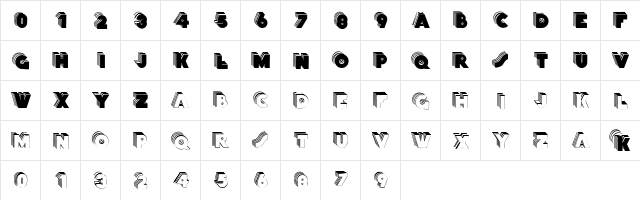
Stackcaps Regular
Design Context for Stackcaps Typeface
Stackcaps is a composed and adaptable typeface that performs quietly and consistently across a wide range of design contexts.
Pro Tip: Pair Stackcaps with a font of contrasting weight or personality to build a more expressive typographic hierarchy.